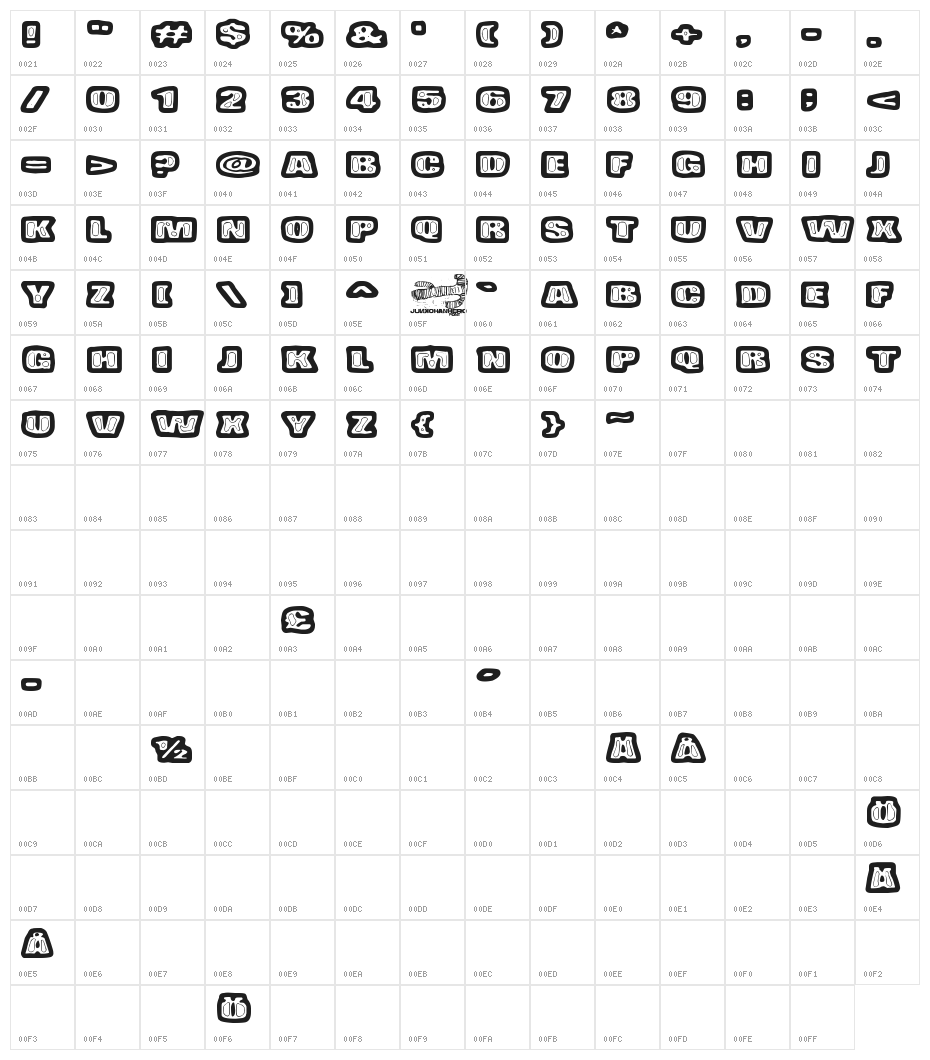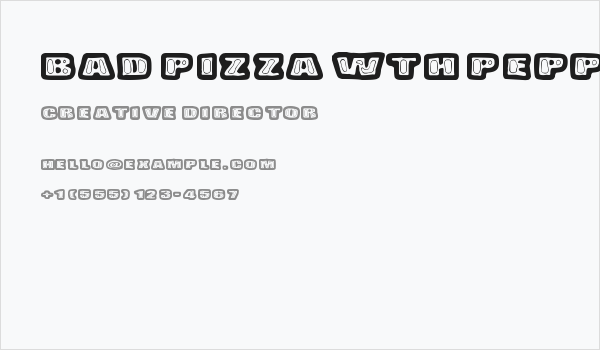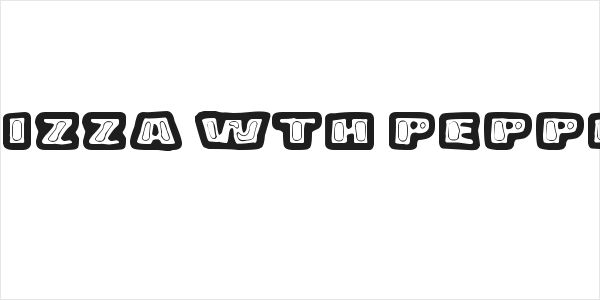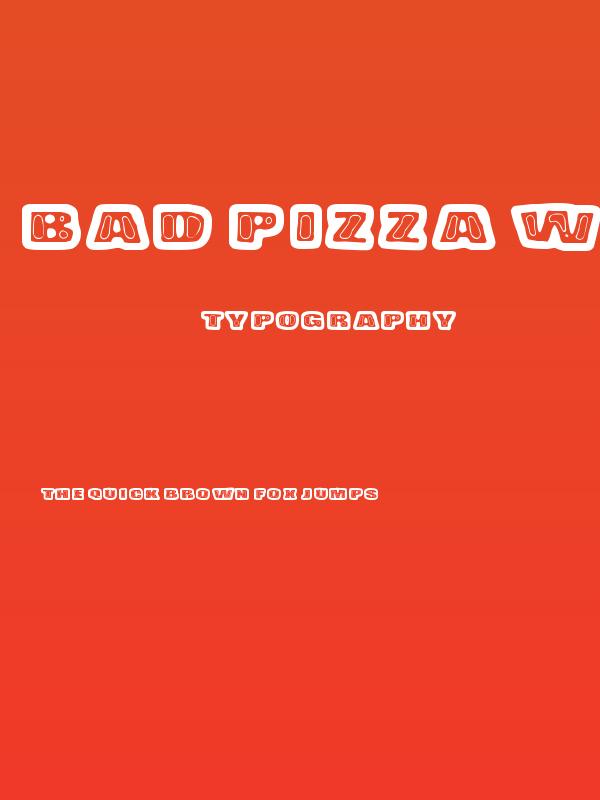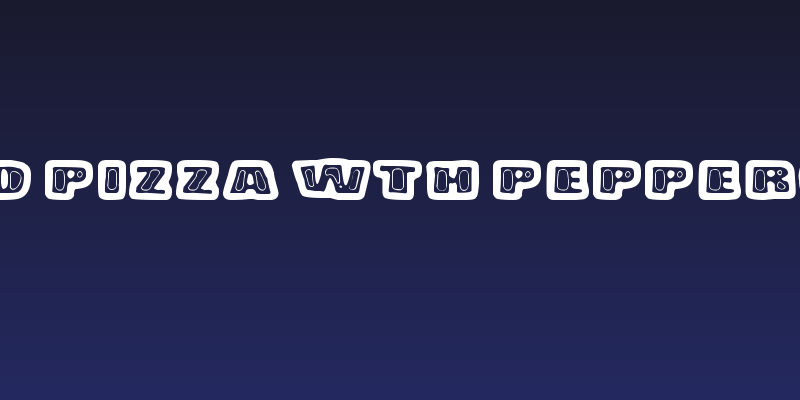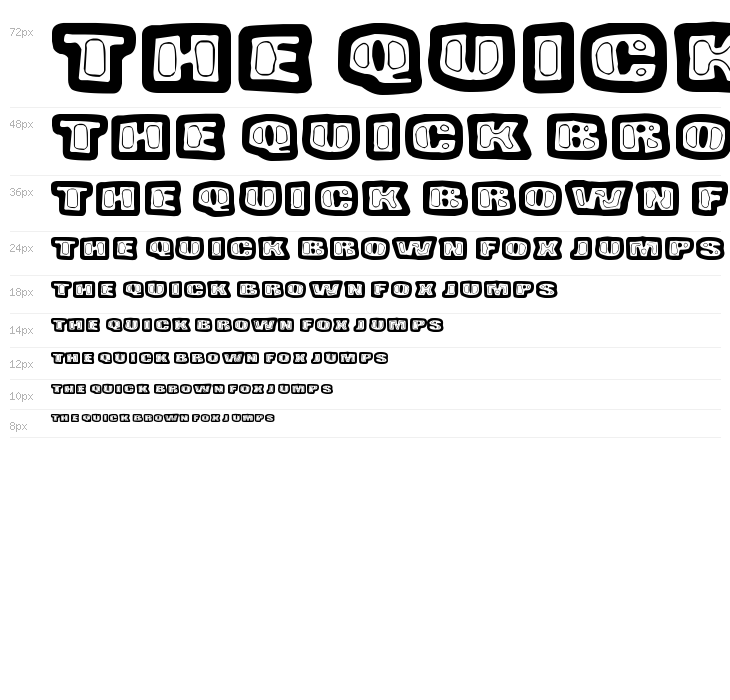
Bad Pizza wth Pepperoni Font
Bad Pizza wth Pepperoni Description
This playful and bold font features a unique design with a thick outline and a filled interior that resembles slices of pepperoni pizza. Each character is crafted with a whimsical touch, incorporating circular shapes and irregular patterns that mimic the look of toppings. The font maintains a consistent weight throughout, giving it a cohesive and eye-catching appearance. Its decorative style makes it ideal for projects that require a fun and informal vibe, such as children's party invitations, playful branding, or food-related designs. The characters are well-spaced, ensuring readability while maintaining their quirky charm.
| Proposed Projects | Ideal for children's party invitations, playful branding, food-related designs, and any project needing a fun, informal vibe. |